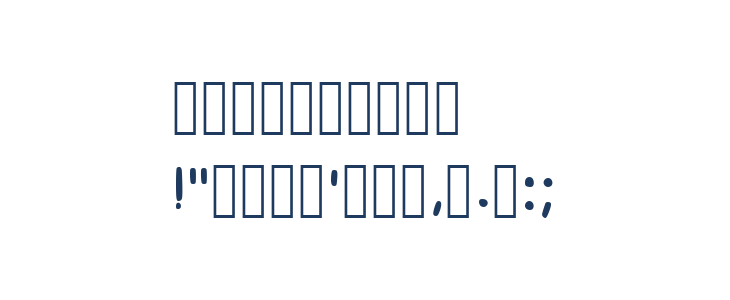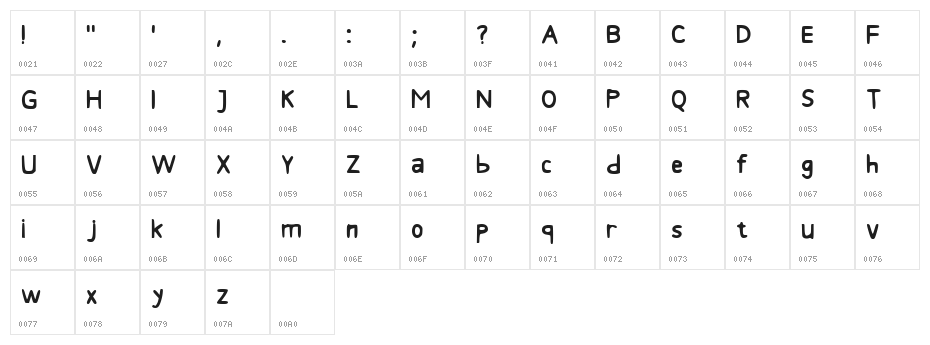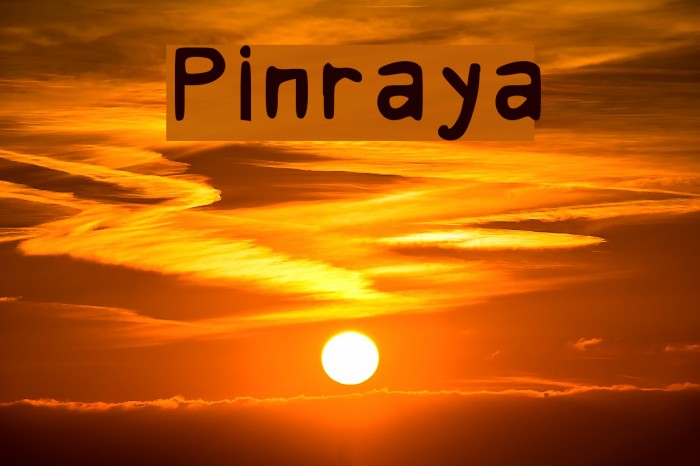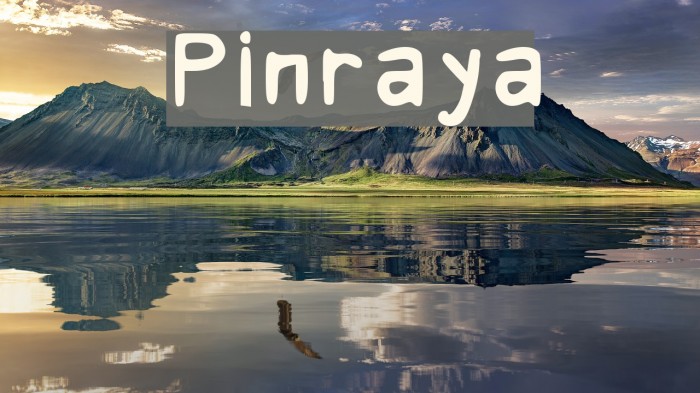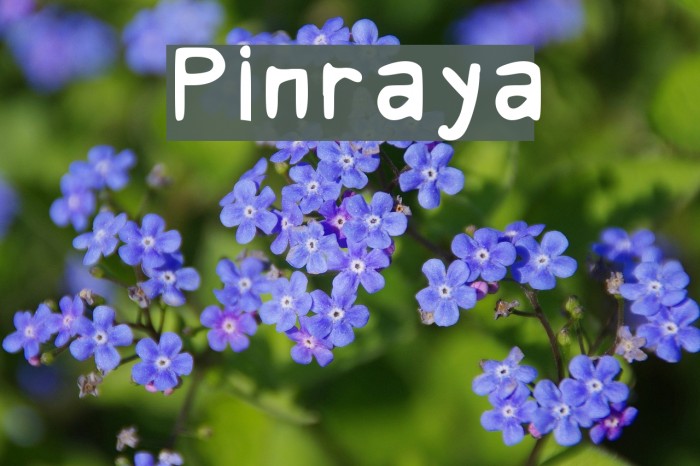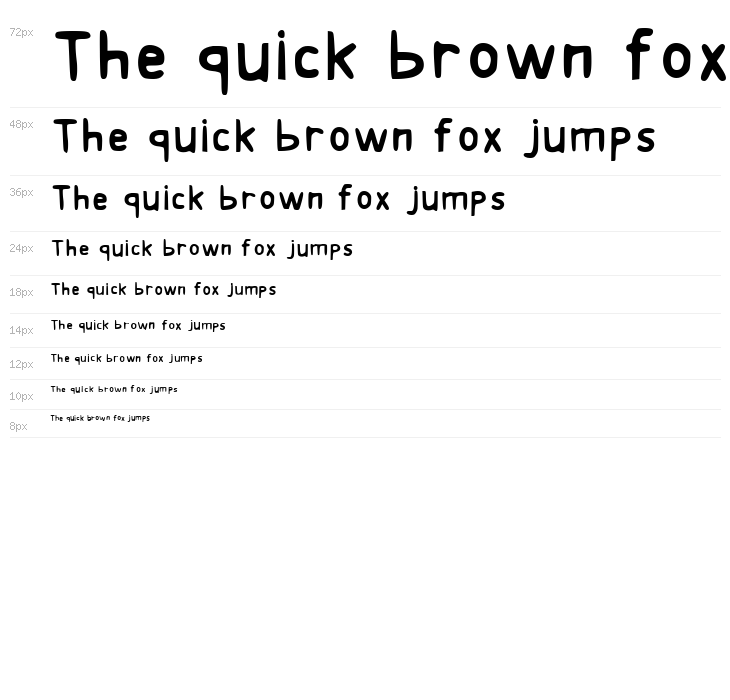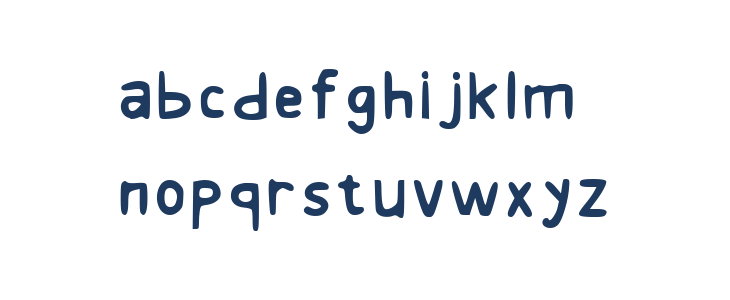
Pinraya Font
| Gesamtstil | Casual |
| Anwendungsfall | Headlines, Informal text, Creative projects |
| Vorgeschlagene Projekte | Ideal for children's books, greeting cards, casual branding, and creative projects. |